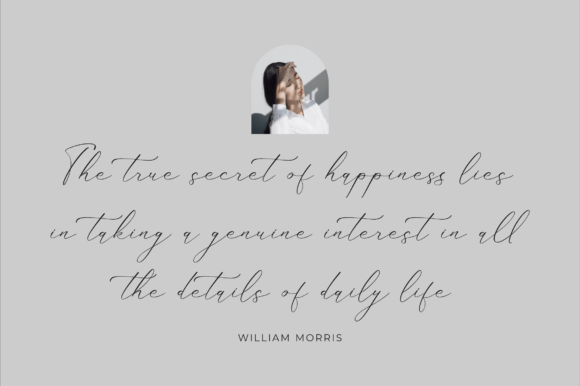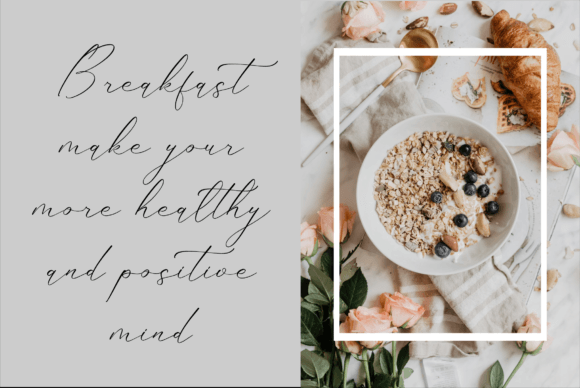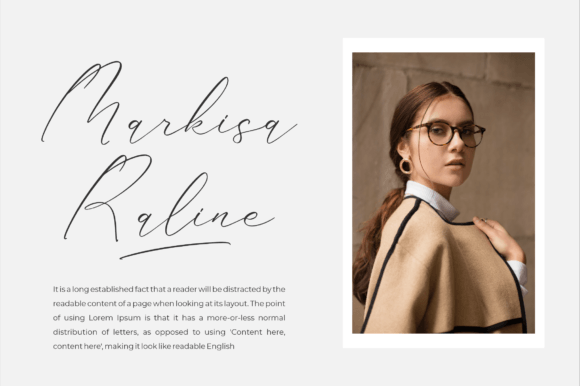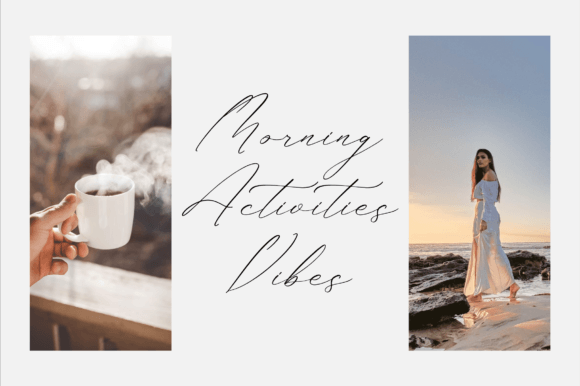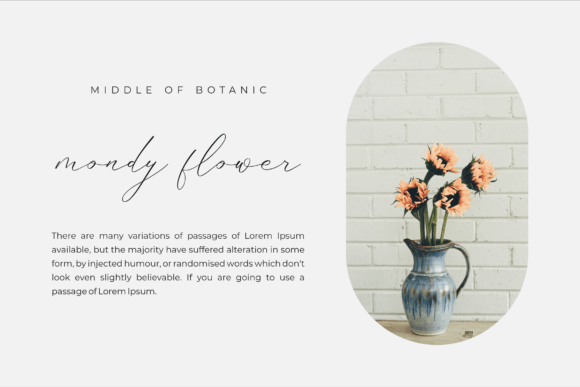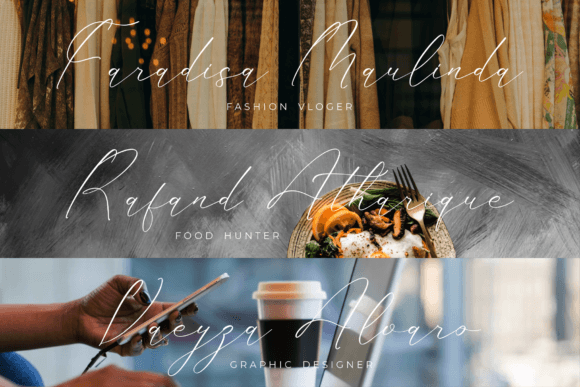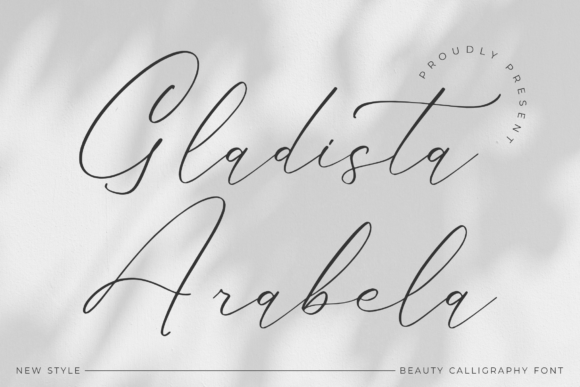
Introducing Gladista Arabela: The Epitome of Luxury Script Fonts
In the realm of typography, a font can make or break the visual appeal of a design. For those seeking to infuse their projects with elegance and sophistication, Gladista Arabela emerges as a stellar choice. This article proudly presents Gladista Arabela – Beauty Calligraphy Font, delving into its unique features, applications, and the value it brings to designers and crafters alike.
A Glimpse into Gladista Arabela
Gladista Arabela is not just another script font; it’s a luxury typeface that boasts a unique style and a modern look, setting it apart from the myriad of fonts available today. Its design is meticulously crafted to exude elegance and refinement, making it an ideal choice for projects that demand a high level of sophistication.
Key Features of Gladista Arabela
• Unique Style: Gladista Arabela’s distinctive style is its most compelling feature. Each letter is designed to contribute to an overall aesthetic that is both luxurious and contemporary.
• Modern Look: The font’s modern appeal ensures that it remains versatile, suitable for a wide range of applications from digital platforms to print media.
• Elegant and Luxurious: The essence of Gladista Arabela lies in its ability to convey elegance and luxury, making it perfect for high-end branding and design projects.
Applications of Gladista Arabela
The versatility of Gladista Arabela is one of its strongest assets. This font can be seamlessly integrated into various design projects, including:
• Elegant and Luxury Logos: Create memorable brand identities with a touch of sophistication.
• Book or Movie Title Design: Elevate your titles with a font that commands attention and exudes class.
• Fashion Brands: Perfect for fashion labels looking to make a statement with their typography.
• Magazines: Add a level of luxury to your magazine’s title pages, headers, and quotes.
• Clothes and Apparel: Use Gladista Arabela for product labels, packaging, and marketing materials to stand out in the fashion industry.
• Lettering and Quotes: Bring a touch of elegance to your lettering projects and quote designs.
Why Choose Gladista Arabela?
In a market saturated with generic fonts, Gladista Arabela offers a refreshing alternative. Here are a few reasons why designers and crafters should consider incorporating this font into their projects:
• Uniqueness: Stand out from the crowd with a font that is both distinctive and stylish.
• Versatility: Suitable for a wide range of projects, from digital designs to print materials.
• Ease of Use: Designed to be user-friendly, making it easy to integrate into your workflow.
• Support for Various Languages: Cater to a global audience with a font that supports multiple languages.
Tips for Using Gladista Arabela Effectively
To maximize the impact of Gladista Arabela, consider the following tips:
• Pair with Complementary Fonts: Combine Gladista Arabela with simpler fonts to create visual contrast and hierarchy.
• Adjust Letter Spacing: Experiment with kerning to achieve the perfect balance and flow.
• Utilize Size and Color: Play with font sizes and colors to add depth and emphasis to your design.
Gladista Arabela – Beauty Calligraphy Font is more than just a typeface; it’s a design statement. Its unique blend of luxury, elegance, and modernity makes it an invaluable asset for designers and crafters looking to elevate their projects. Whether you’re working on a high-end brand identity, a fashion magazine, or simply looking to add a touch of sophistication to your designs, Gladista Arabela is sure to exceed your expectations.
Embrace the beauty and versatility of Gladista Arabela and discover a world of design possibilities that are as limitless as your creativity.